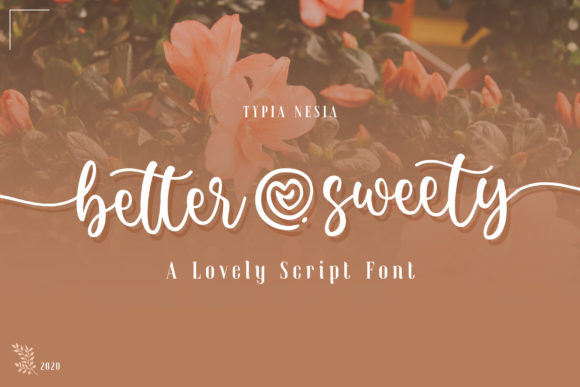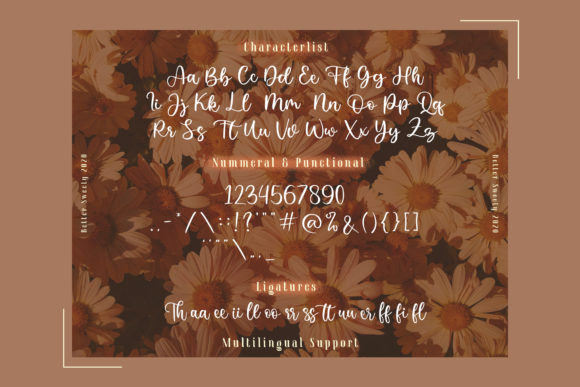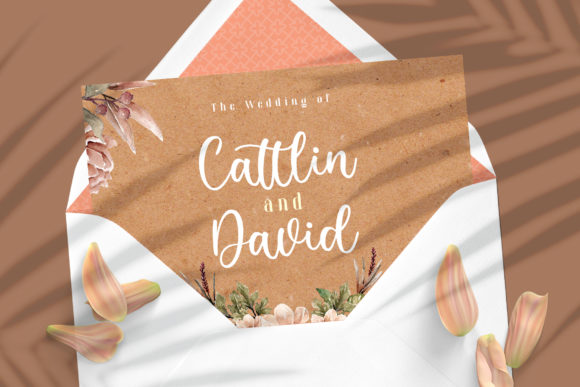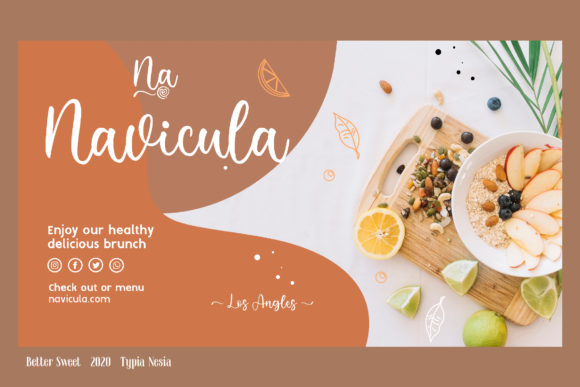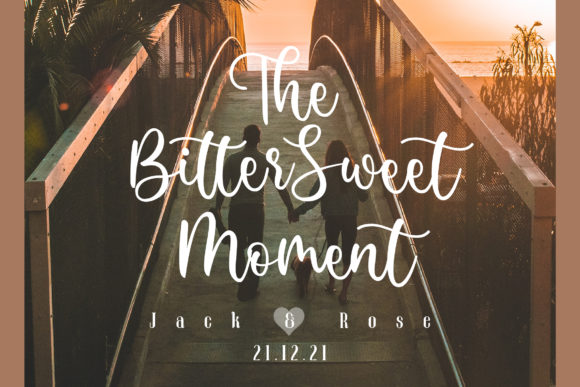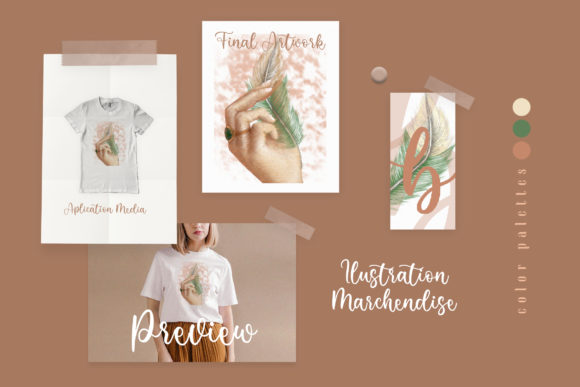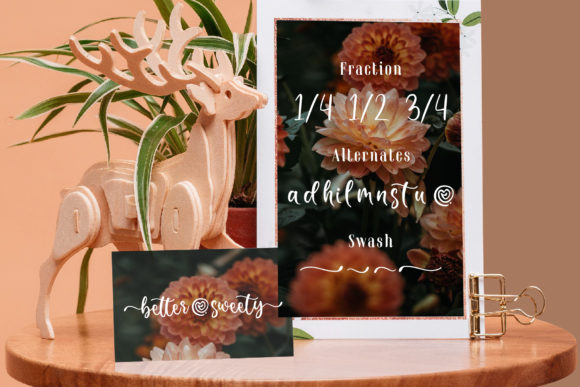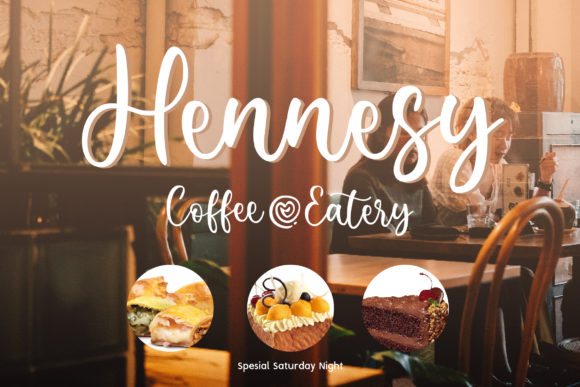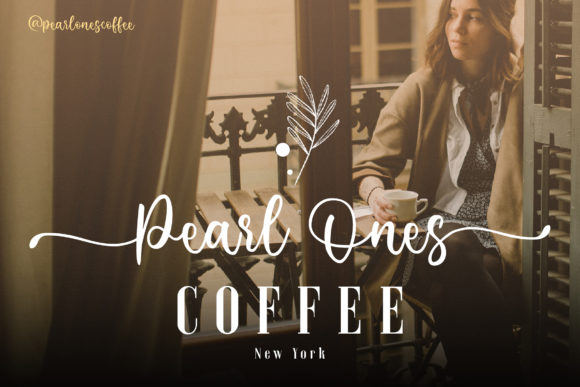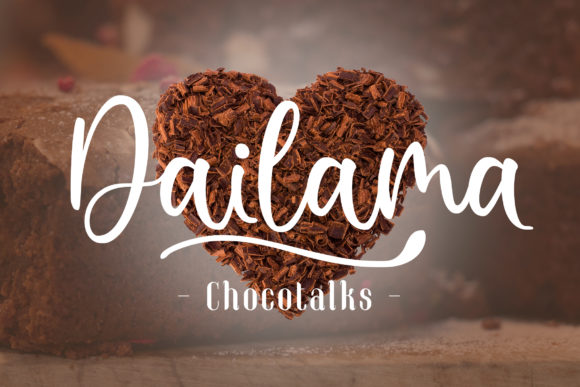
Better Sweety Font
About Better Sweety Font
Better Sweety is an elegant and dainty handwritten font that features sweet and delicate swashes. This original look will appeal to a wide range of crafty ideas, from letterheads and titles, to stationery.